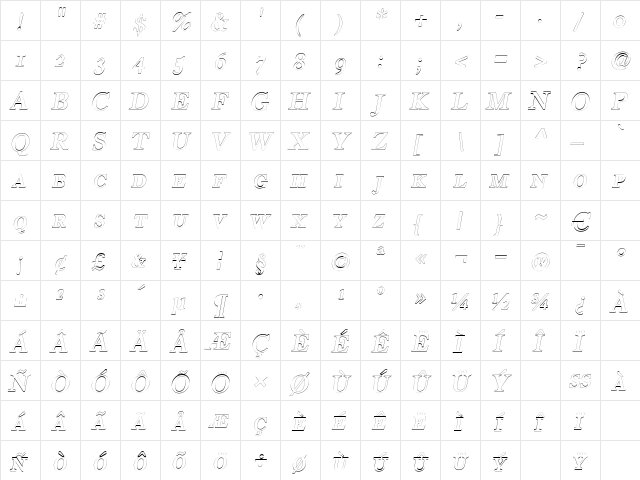
HadronCapsOutline Italic Font Preview
HadronCapsOutline Italic
HadronCapsOutline Italic Font Details
Design Context for HadronCapsOutline Typeface
HadronCapsOutline is built around its visual character rather than neutral utility — its distinctive forms are designed to make an impression at display sizes. The dynamic lean of this cut emphasises speed and emphasis in any layout.